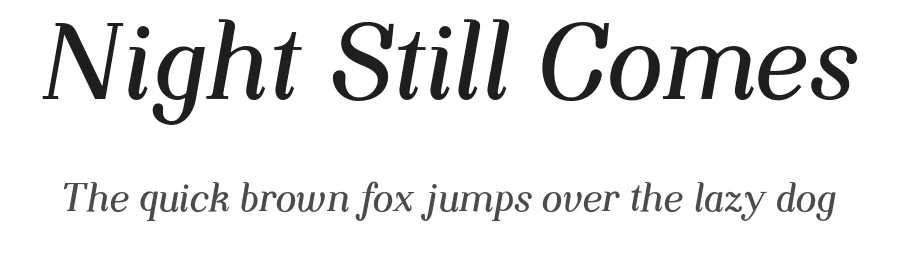
About Airy Restoration Font
Airy Restoration Specifications
| Font Family | Airy Restoration |
| Full Name | Airy Restoration Oblique |
| Glyph Count | 440 glyphs |
| PostScript Name | AiryRestoration-Oblique |
| Designer | Wildan Suprian Syah |
Airy Restoration ships with 7 OpenType features you can switch on in apps that support them (Illustrator, InDesign, Affinity, Figma, CSS font-feature-settings).
Airy Restoration supports 268 languages.
Airy Restoration Font is a versatile serif font that works for both headings and body text. Pair it with a contrasting sans-serif or slab serif font to add visual interest and a clear distinction between titles and body copy.
Airy Restoration Font
by Wildan Type